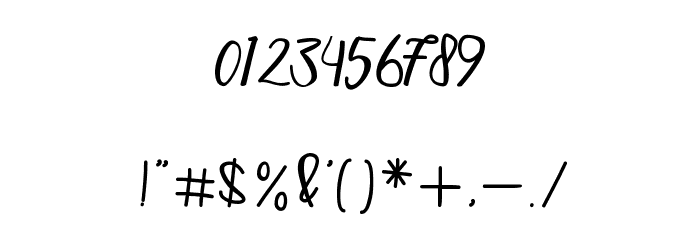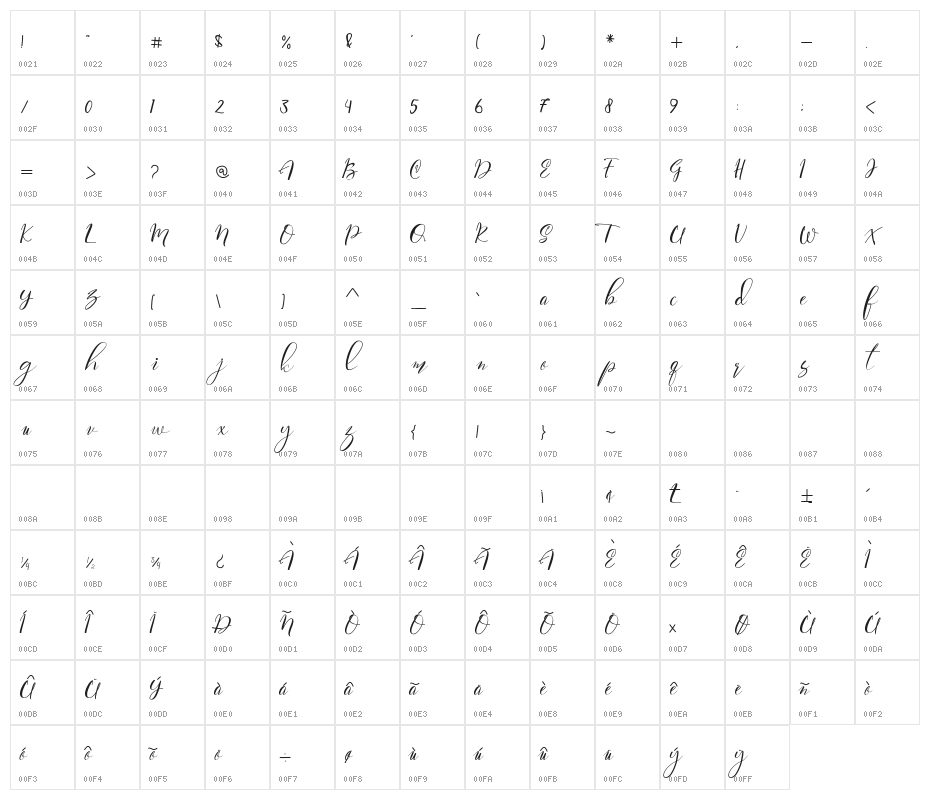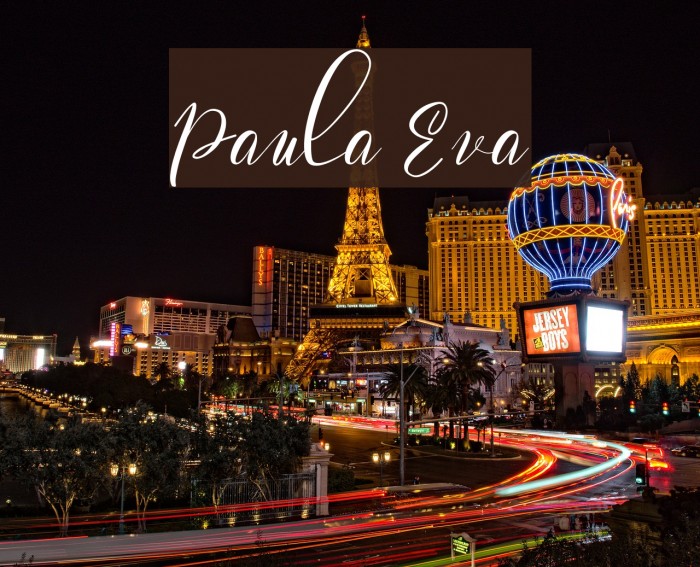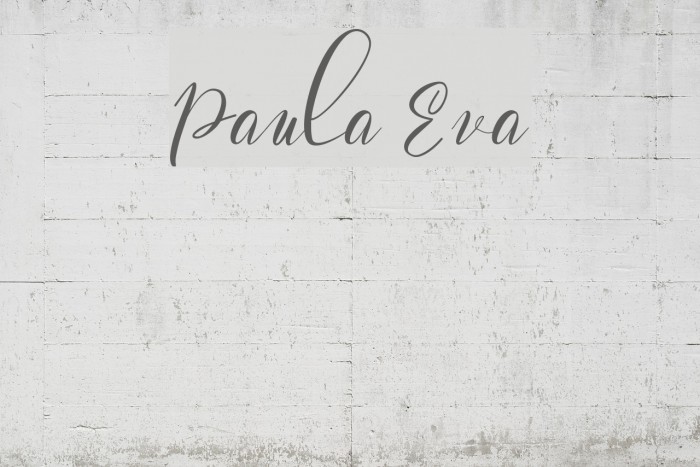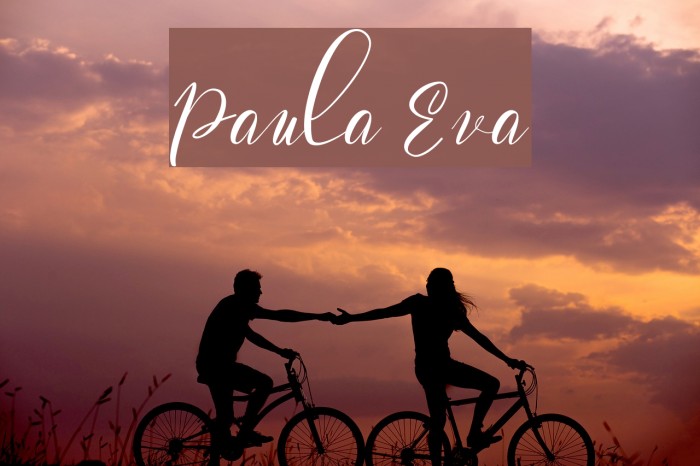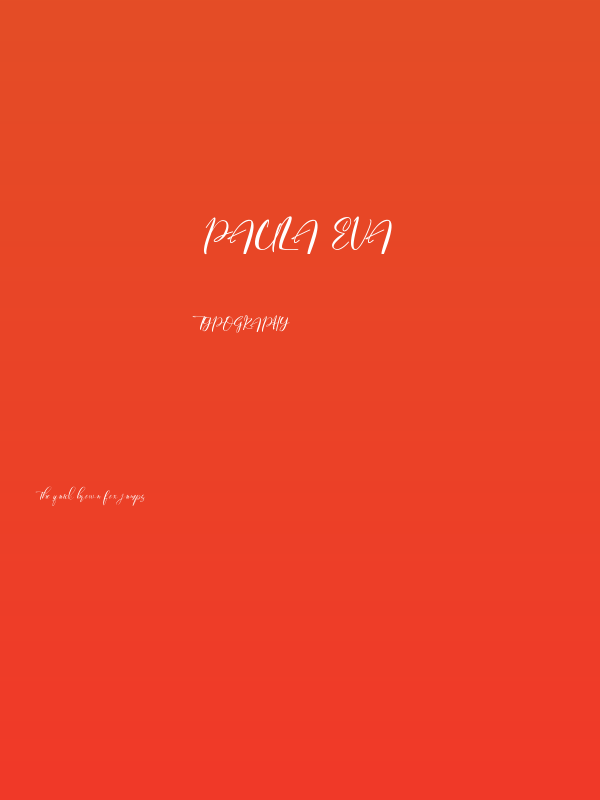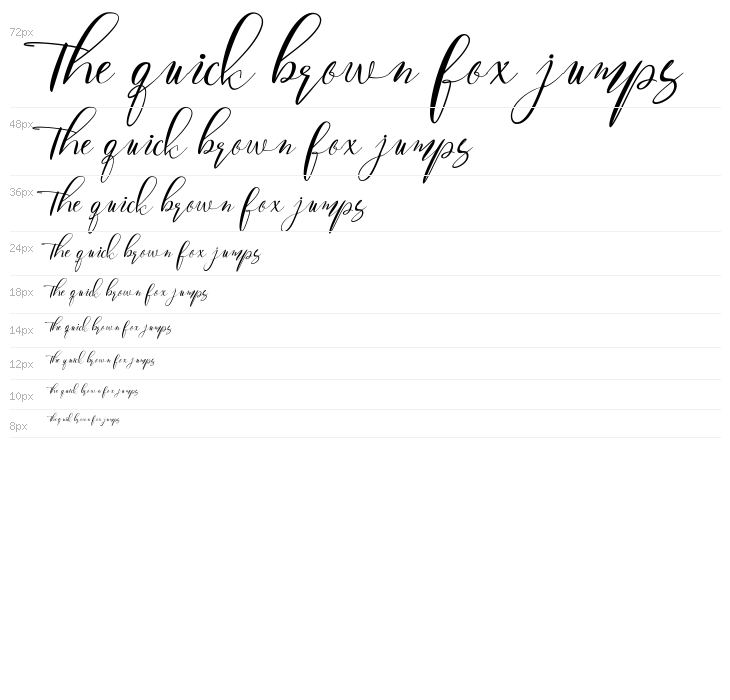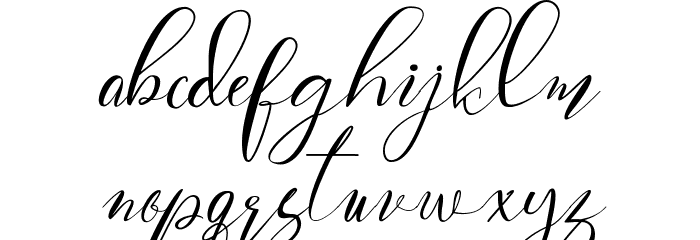
Paula Eva Font
Paula Eva Description
This elegant script font features a flowing, cursive style with a modern twist. The uppercase letters are bold and sweeping, with dramatic flourishes that add a sense of movement and grace. The lowercase letters maintain a consistent flow, with delicate loops and curves that enhance its handwritten appeal. The numbers and special characters are designed to complement the overall aesthetic, maintaining the same fluidity and elegance. This font is perfect for creating sophisticated and stylish designs, offering a touch of class and refinement.
A modern, elegant script font with flowing, cursive strokes and dramatic flourishes from Uncategorized fonts.
- Proposed Projects: Ideal for wedding invitations, elegant branding, personalized stationery, and upscale packaging.
- Use Case: Logos, Invitations, Branding